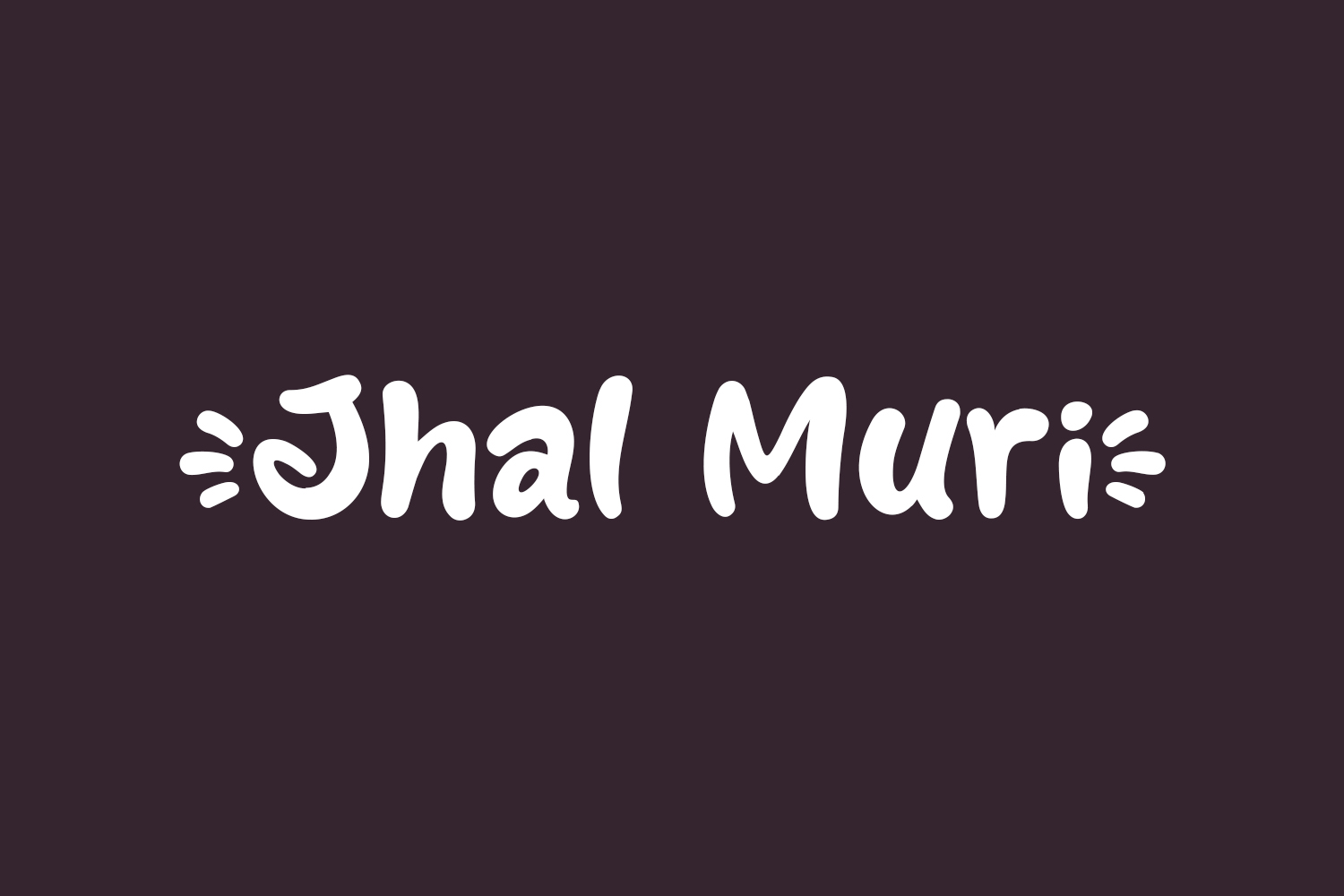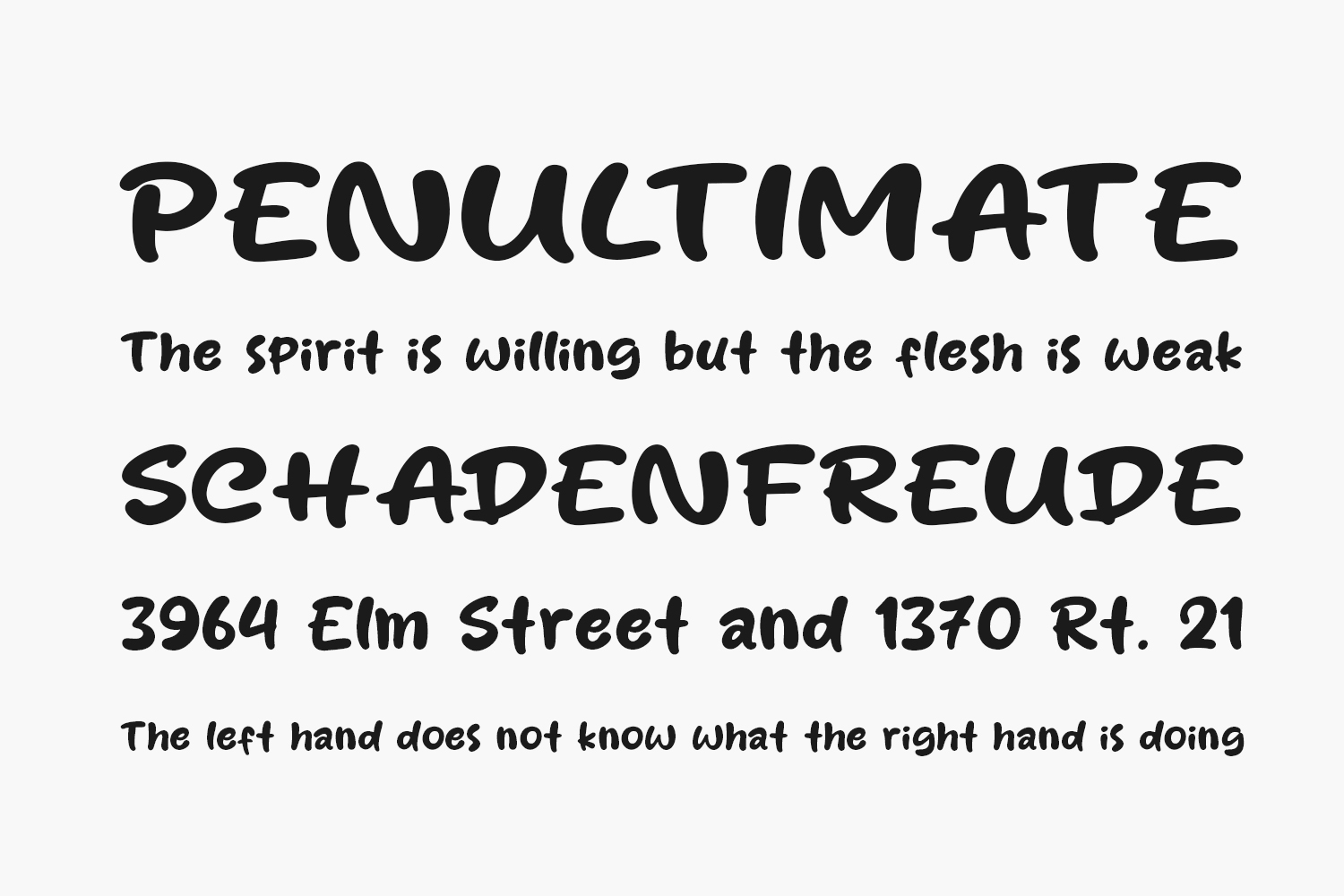
Jhal Muri Free Font is a modern and cute display font perfect for posters, logos, magazines, book covers, banners, and many more! Get this amazing font, and use it to create lovely designs. It can easily be matched to an incredibly large set of projects, so add it to your creative ideas and notice how it makes them stand out. Download the font for free if you need it for personal use or purchase the full version for commercial use.